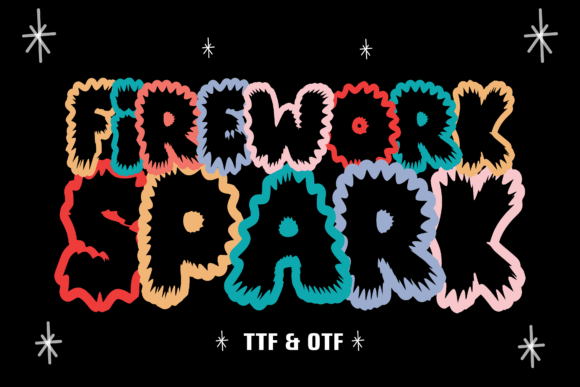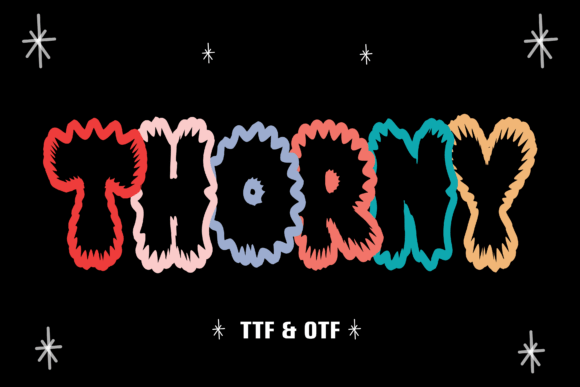
Happy New Year Font: Ignite Your Designs with a Festive Spirit
As the clock strikes midnight on New Year’s Eve, the world erupts in a kaleidoscope of colors, lights, and celebrations. What better way to capture this essence than with a font that embodies the very spirit of jubilation? Enter the Happy New Year font, a bold and vibrant design option that’s about to revolutionize your artistic projects. In this article, we’ll dive into the world of this spark-styled font, exploring its versatility, creative possibilities, and the excitement it brings to various artistic applications.
Unleashing Creativity with Happy New Year Font
The Happy New Year font is more than just a typographic design; it’s an explosion of creativity waiting to happen. Its bold and radiant style serves as a perfect choice for designers, crafters, and artists looking to infuse their projects with a celebratory theme. Whether you’re working on vibrant fireworks party invitations, unique t-shirt prints, comic displays, or cheeky posters, this font is sure to hearten the jubilation and make your designs stand out.
Endless Possibilities for Artistic Applications
One of the most exciting aspects of the Happy New Year font is its versatility. This spark-styled design option can be used across a diverse range of artistic applications, including:
• Party Invitations: Create eye-catching fireworks party invitations that set the tone for an unforgettable celebration.
• T-Shirt Prints: Design unique and playful t-shirt prints that make perfect party favors or souvenirs.
• Comic Displays: Add a touch of whimsy and humor to your comic displays with this bold and vibrant font.
• Posters: Craft cheeky posters that grab attention and spread the festive spirit.
Enrich Your Designs with Happy New Year Font
So, what makes the Happy New Year font an ideal choice for designers and crafters? Here are just a few reasons why you should consider incorporating this font into your projects:
• Captivating and Delightful: The Happy New Year font is sure to captivate and delight your audience with its bold and festive style.
• Celebratory Theme: Infuse every project with a celebratory theme that’s perfect for New Year’s Eve, parties, and other joyous occasions.
• Customizable: Experiment with different colors, sizes, and styles to make the Happy New Year font your own.
Tips and Tricks for Working with Happy New Year Font
To get the most out of the Happy New Year font, here are some tips and tricks to keep in mind:
• Pair with Contrasting Colors: Pair the font with contrasting colors to make it stand out and add visual interest.
• Experiment with Sizes: Experiment with different font sizes to create a visually appealing hierarchy of text.
• Add Graphics and Shapes: Add graphics and shapes to enhance the design and create a more dynamic look.
In conclusion, the Happy New Year font is a bold and vibrant design option that’s perfect for designers, crafters, and artists looking to infuse their projects with a celebratory theme. With its versatility, creative possibilities, and ease of use, this spark-styled font is sure to ignite your designs and bring the festive spirit to life. So why wait? Download the Happy New Year font today and start creating unforgettable designs that will captivate and delight your audience.